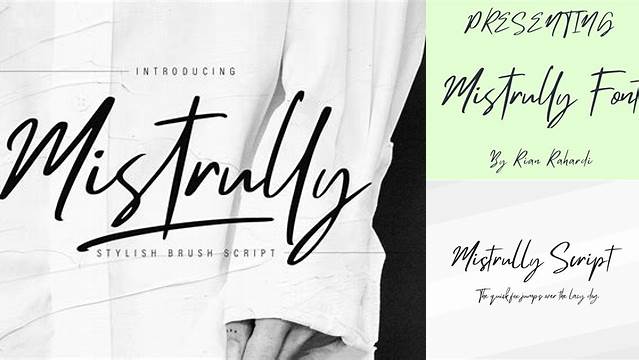
Mistrully Brush Script Font: An Overview
The Mistrully Brush Script font is a stylish typeface that mimics the fluid strokes of brush lettering. Its elegant curves and natural feel make it a popular choice for a wide range of design projects. This font exudes a sense of sophistication and warmth, making it perfect for adding a personal touch to your work. Understanding its unique characteristics and where it shines will help you utilize it effectively.
Understanding the Characteristics of Mistrully Brush Script
When you first lay eyes on the Mistrully Brush Script font, you'll immediately notice its flowing lines and hand-drawn aesthetic. This font features a natural, slightly imperfect look, giving it a genuine and authentic feel. Unlike rigid, geometric fonts, Mistrully Brush Script has a dynamic quality, with varying stroke widths and slightly irregular letterforms. These characteristics contribute to its charm and make it stand out from more generic script fonts. The gentle slant and graceful loops add to its overall elegance, making it a versatile choice for both digital and print applications. You'll find that its readability is quite good, especially in larger sizes, allowing it to make a strong visual impact without sacrificing clarity. The unique personality of Mistrully Brush Script makes it ideal for projects where you want to convey a sense of warmth, creativity, and personal connection. Its hand-lettered feel brings a human touch to your designs, setting them apart from the often sterile and impersonal look of more formal typefaces. Whether you're working on a wedding invitation, a logo, or a social media graphic, understanding the nuances of Mistrully Brush Script's characteristics will help you use it to its full potential, creating designs that truly resonate with your audience.
Common Uses for Mistrully Brush Script Font
The versatility of the Mistrully Brush Script font makes it suitable for a variety of design applications. One of the most common uses is in branding, where its elegant and personal touch can help businesses create a memorable and approachable image. Logos, website headers, and marketing materials often benefit from the warmth and sophistication that Mistrully Brush Script provides. Think about how a bakery might use it to convey a sense of handcrafted goodness or a wedding planner to evoke romance and elegance. Beyond branding, this font is also a fantastic choice for invitations, greeting cards, and other stationery. Its handwritten feel adds a special touch to personal correspondence, making events feel more intimate and heartfelt. Imagine receiving a beautifully addressed envelope with a thank-you note written in Mistrully Brush Script – it’s sure to make a lasting impression! In the digital realm, Mistrully Brush Script is perfect for social media graphics, blog headers, and website designs. It can help your content stand out in a sea of generic fonts, drawing the eye and conveying your message with style. Whether you're creating Instagram posts, designing a website banner, or crafting an email newsletter, this font can add a touch of personality and flair. Even in longer texts, headings and subheadings set in Mistrully Brush Script can break up the monotony and add visual interest. Overall, the key to using Mistrully Brush Script effectively lies in understanding its character and matching it with the right context. Its blend of elegance and approachability makes it a powerful tool for creating designs that are both beautiful and engaging.
Using Mistrully Brush Script in Your Designs
Okay, you've successfully found a free download of the Mistrully Brush Script font and made sure it's safe to use. Now comes the fun part: incorporating it into your designs! This font, with its elegant and flowing lines, can add a touch of sophistication and personality to a wide range of projects. But like any design element, it's essential to use it thoughtfully to achieve the best results. Let's explore some practical tips and best practices for using Mistrully Brush Script effectively in your creative work.
Best Practices for Incorporating Brush Script Fonts
When it comes to using the Mistrully Brush Script font, or any brush script font for that matter, there are a few best practices to keep in mind to ensure your designs look polished and professional. One of the most important things is legibility. While brush script fonts are beautiful, they can sometimes be challenging to read if used in large blocks of text or at small sizes. It's generally best to reserve Mistrully Brush Script for headings, titles, logos, and other short text elements where readability isn't as critical. For body text, opt for a cleaner, more legible font that complements the brush script. Another crucial aspect is contrast. Mistrully Brush Script works best when paired with a simpler, more neutral font. This creates visual contrast and prevents your design from becoming too overwhelming. For example, you might pair Mistrully Brush Script with a sans-serif font like Open Sans or a serif font like Times New Roman. The key is to choose a font that doesn't compete with the brush script but instead allows it to shine. Kerning and spacing are also essential considerations. Brush script fonts often have unique letterforms that require careful kerning (adjusting the space between individual letters) to ensure they look balanced and readable. Pay attention to the spaces between letters and words, and adjust them as needed to achieve a harmonious look. Overcrowded or uneven spacing can make your design look amateurish, so take the time to fine-tune these details. Color can also play a significant role in how effectively you use Mistrully Brush Script. Consider the overall color palette of your design and choose a color for the font that complements the other elements. A dark brush script font on a light background is a classic and effective choice, but you can also experiment with different color combinations to create a unique look. Finally, less is often more when it comes to brush script fonts. Using Mistrully Brush Script sparingly, in strategic places, can have a much greater impact than using it excessively throughout your design. Think of it as a decorative element that should be used to add personality and flair, rather than the primary font for all your text. By following these best practices, you can effectively incorporate Mistrully Brush Script into your designs and create visually appealing and professional-looking work.
Conclusion: Embrace the Beauty of Mistrully Brush Script
In conclusion, the Mistrully Brush Script font is a fantastic typeface that can add a touch of elegance, personality, and handcrafted charm to your designs. Whether you're working on branding, invitations, social media graphics, or any other creative project, this font can help you create a visually appealing and memorable look. Finding a free download is definitely a bonus, but remember to always download from reputable sources and understand the font licensing terms to ensure you're using it legally and safely. By understanding the characteristics of Mistrully Brush Script, pairing it effectively with other fonts, and avoiding common mistakes, you can use this font to its full potential and create stunning designs. And if you're looking for variations or alternatives, there are plenty of other brush script fonts to explore, both within the Mistrully Brush Script family and in the broader world of typography. So, go ahead, embrace the beauty of Mistrully Brush Script, and let your creativity flow! We've covered everything from finding that free download to mastering its use in your designs, so you're well-equipped to make the most of this wonderful font. Happy designing, guys!